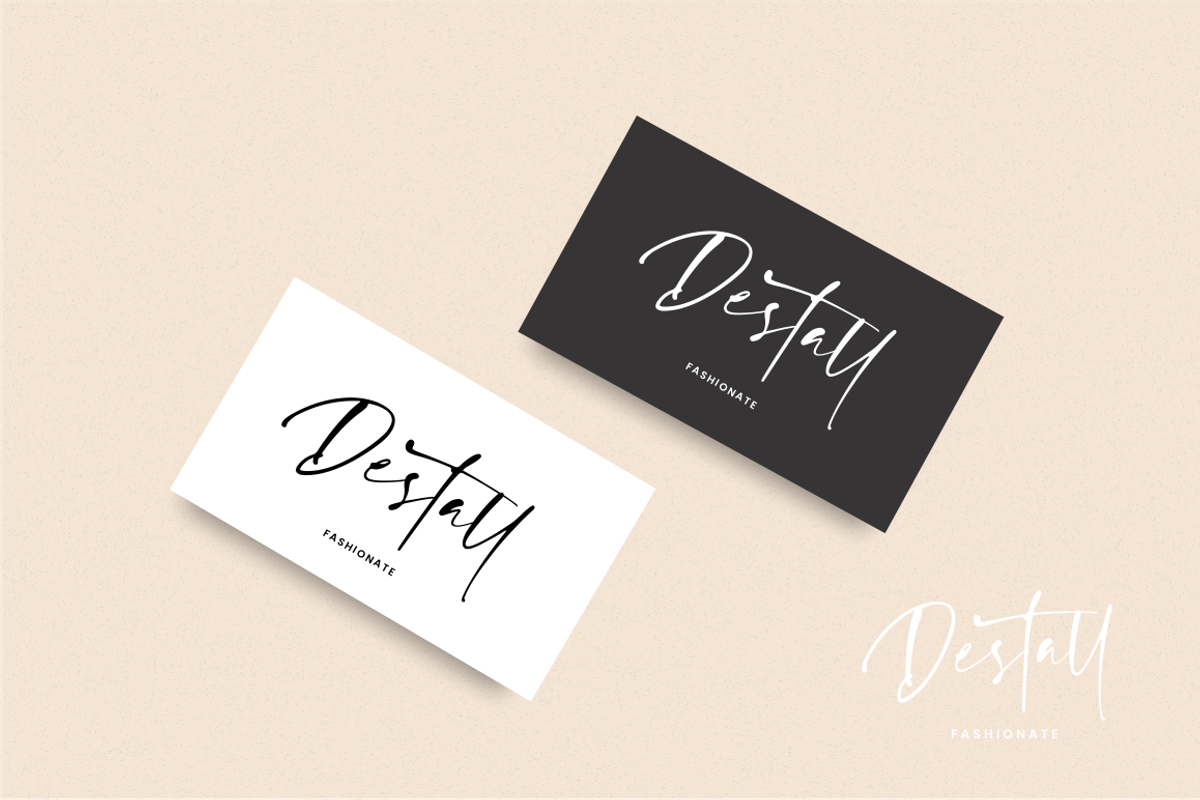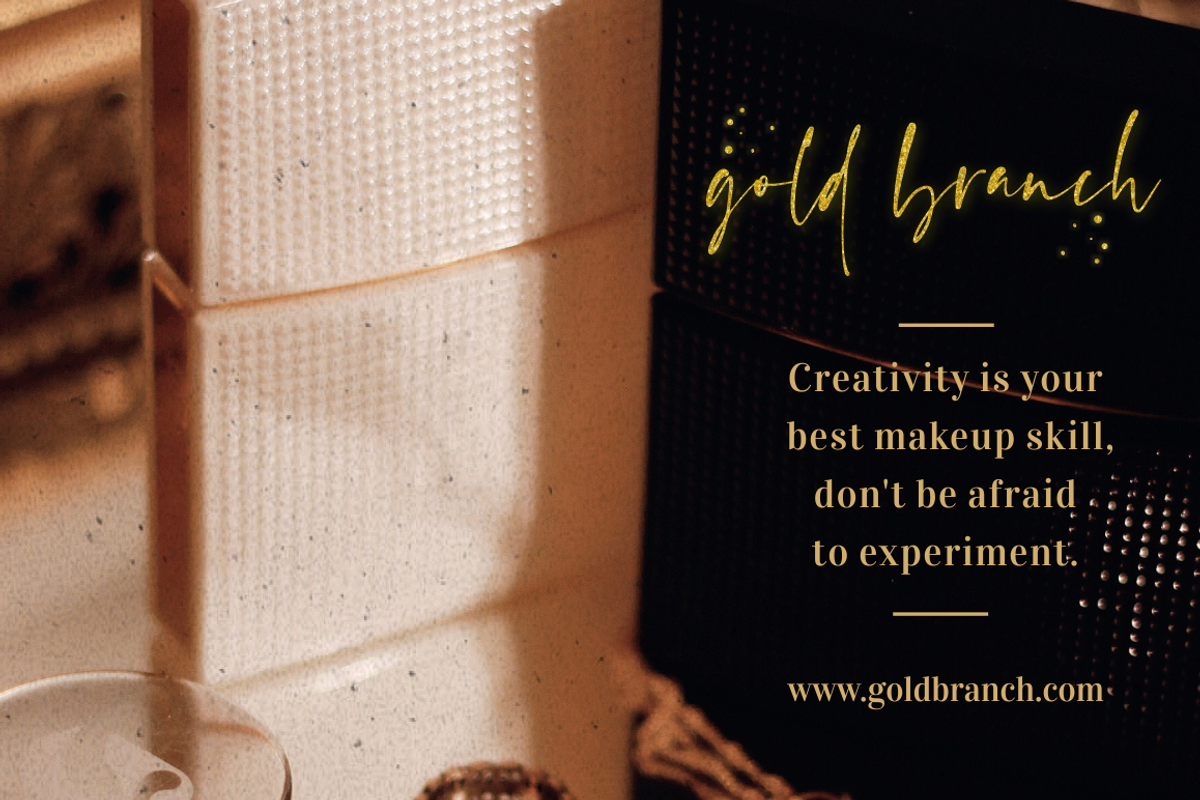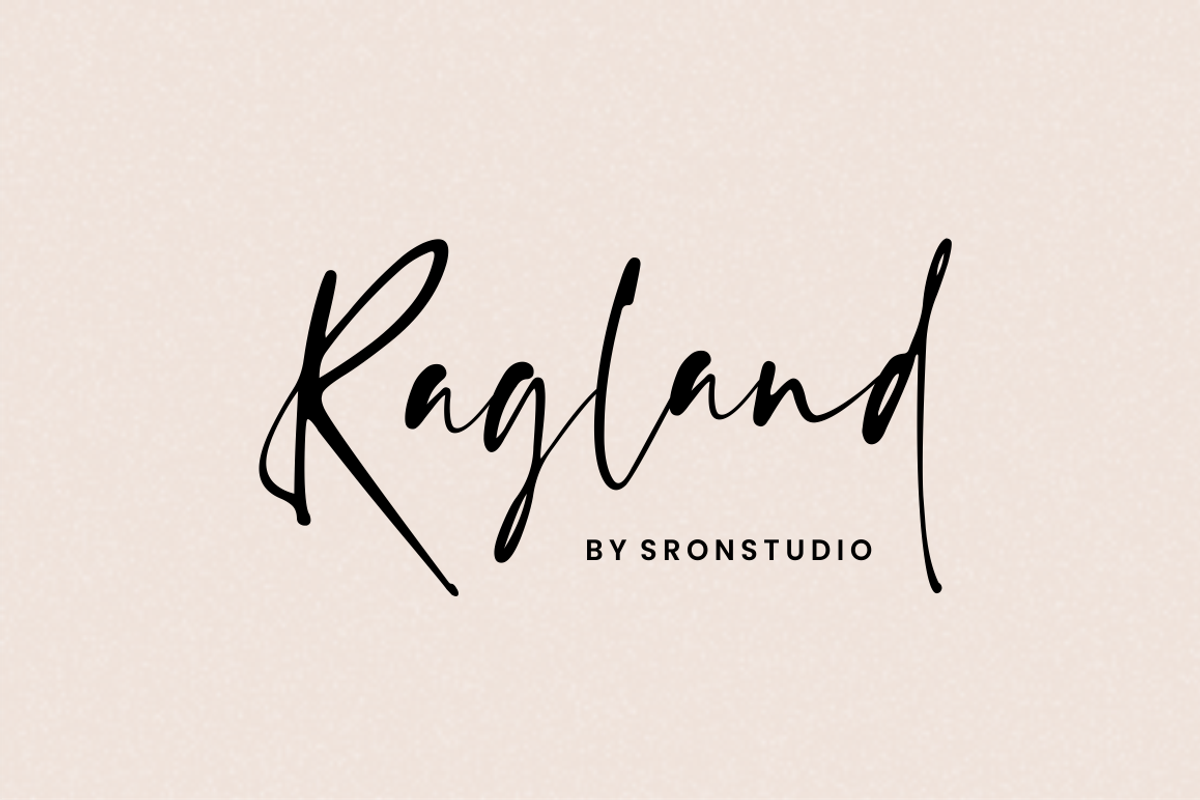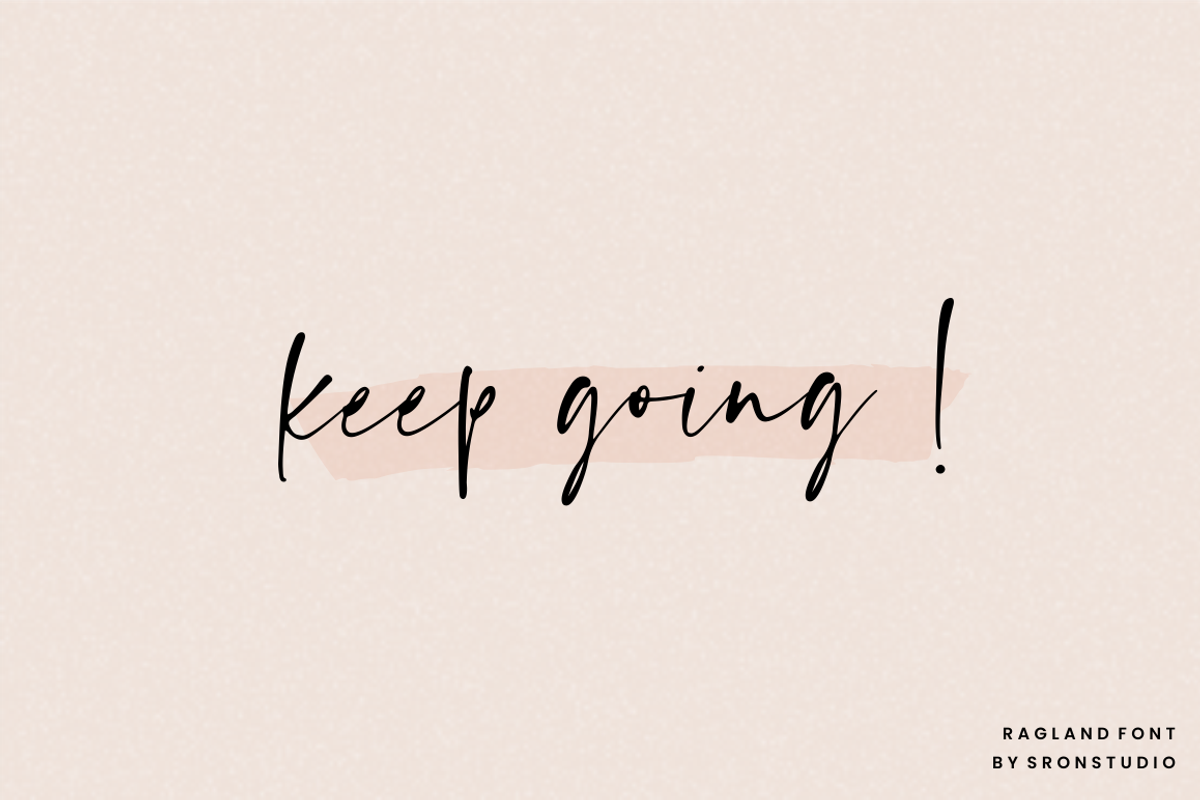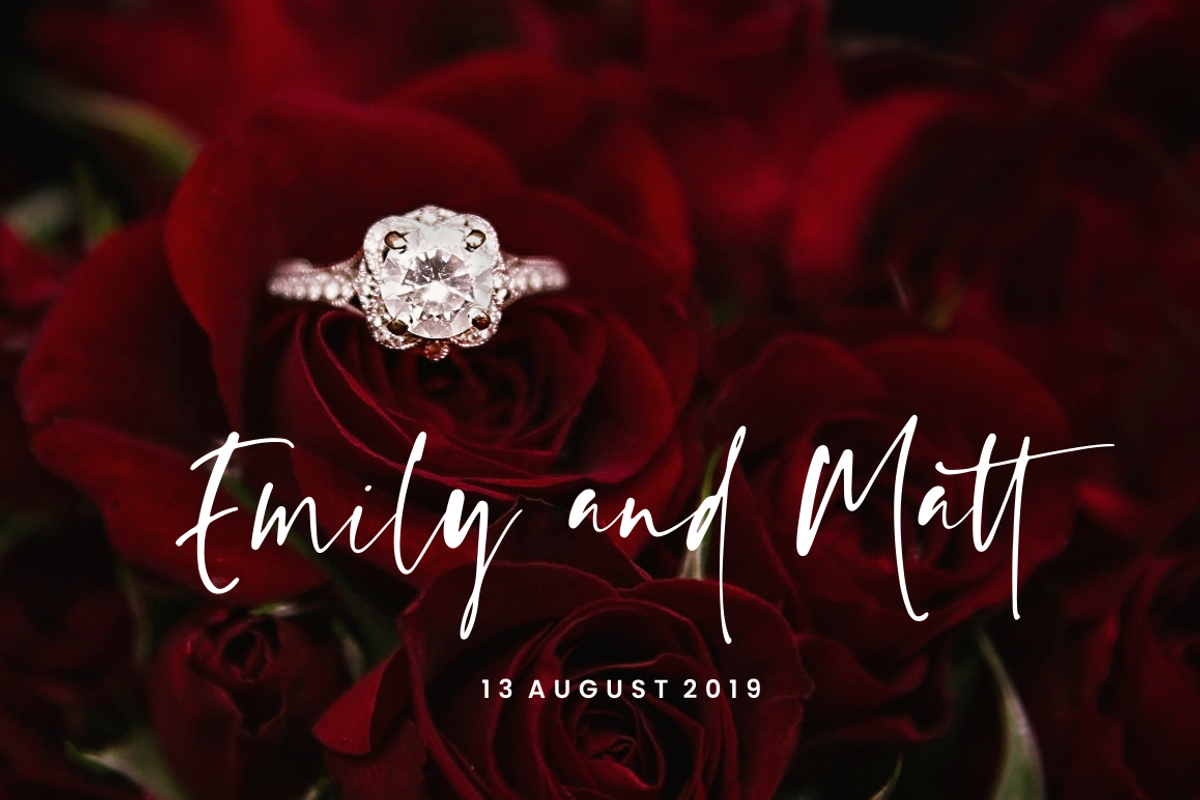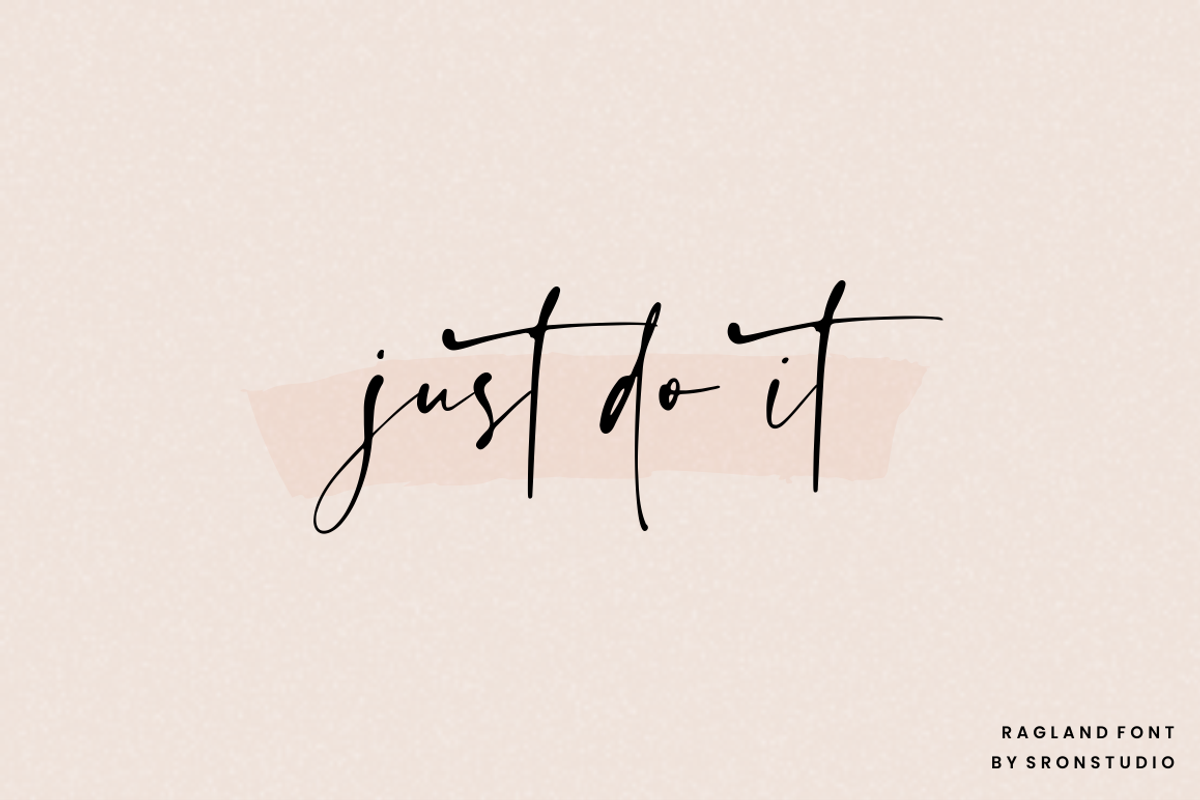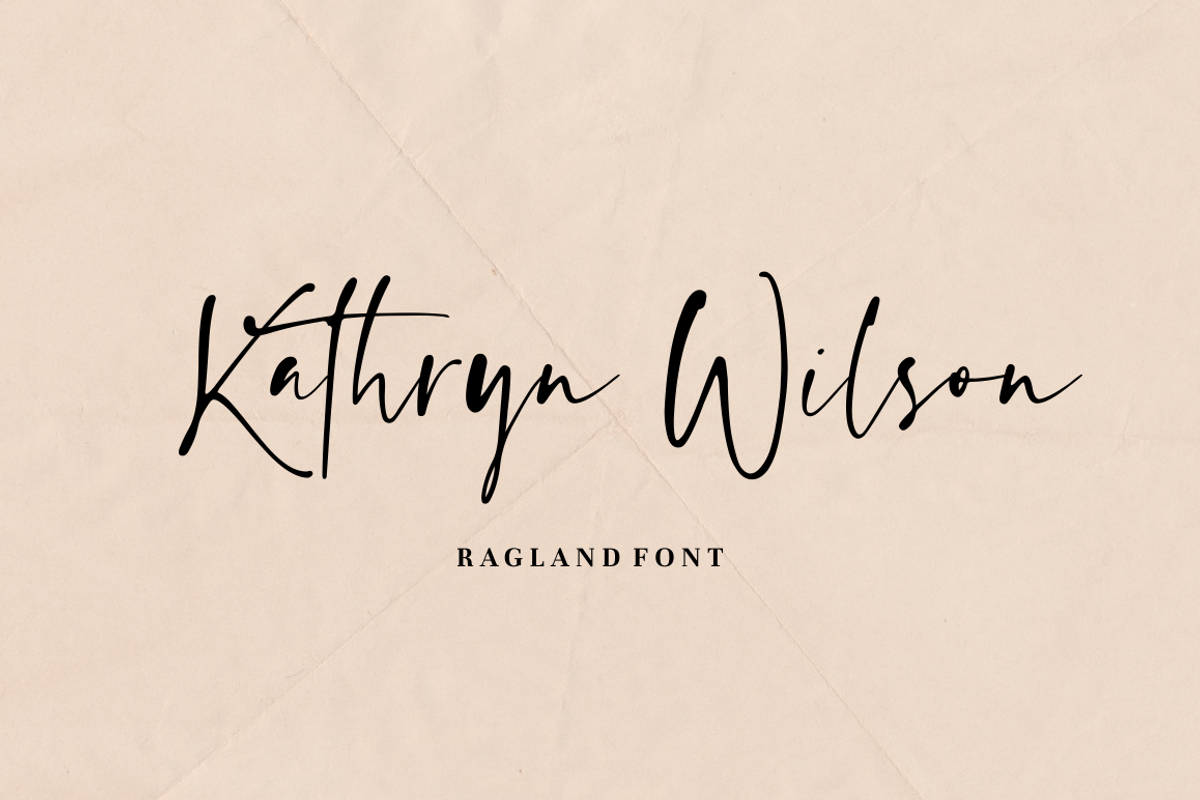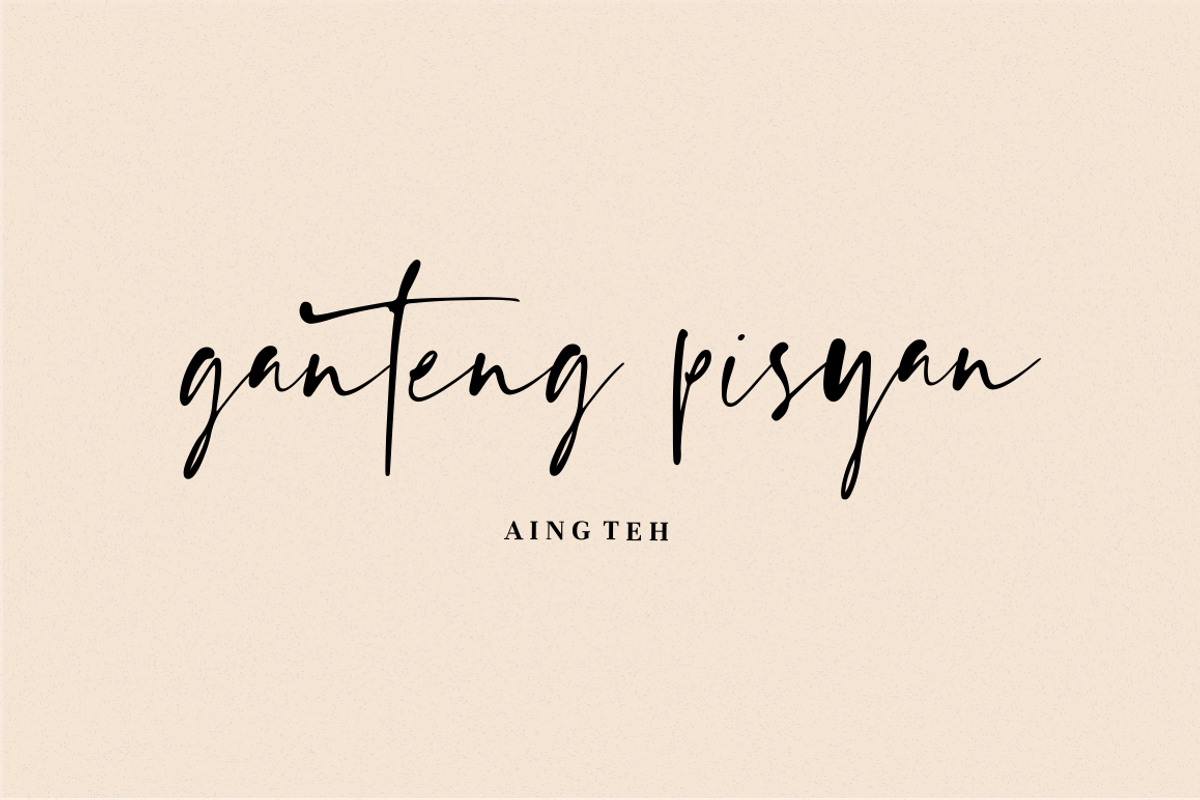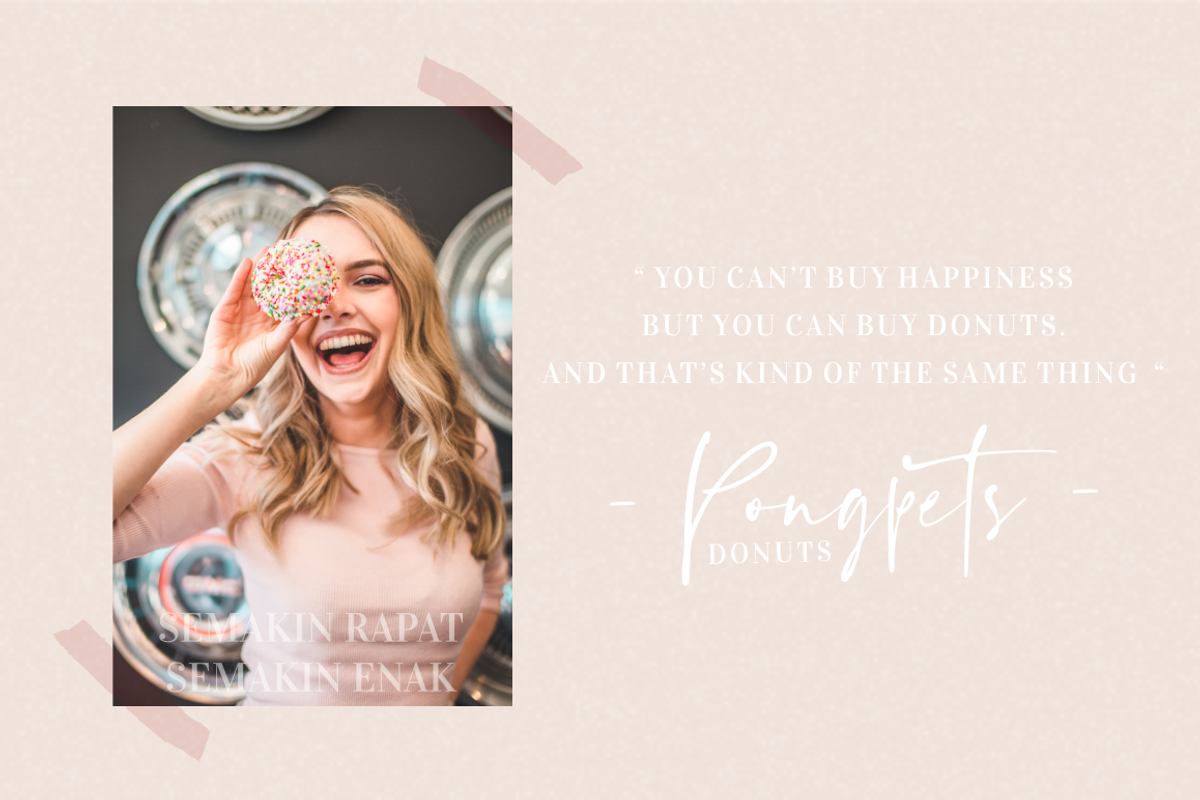
Ragland - Handwritten Font
Introducing Ragland – Handwritten Font
Ragland is a natural handwritten font, this font Is perfect for logo, invitation, stationery, wedding designs, social media posts, advertisements, product packaging, product designs, label, photography, watermark, special events or anything.
Ragland comes with full set of uppercase and lowercase letters, multilingual symbols, numerals, punctuation.